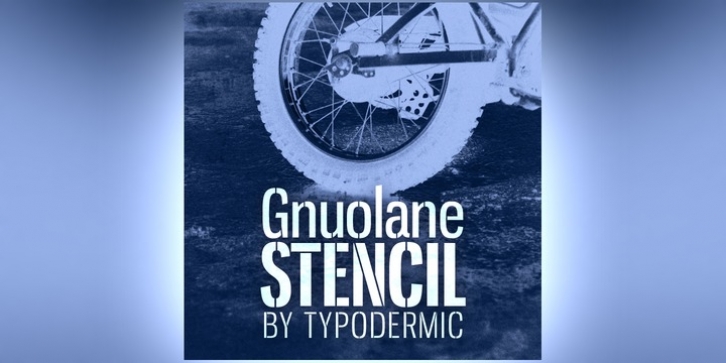
Gnuolane is a serious headline font in five weights. While it borrows from 19th Century grotesque models, it possesses a superelliptical sixties sneer. Gnuolane includes old-style numerals, ordinals, superiors, inferiors, f-ligatures and class-based kerning. Also check out Gnuolane & Gnuolane Jump.